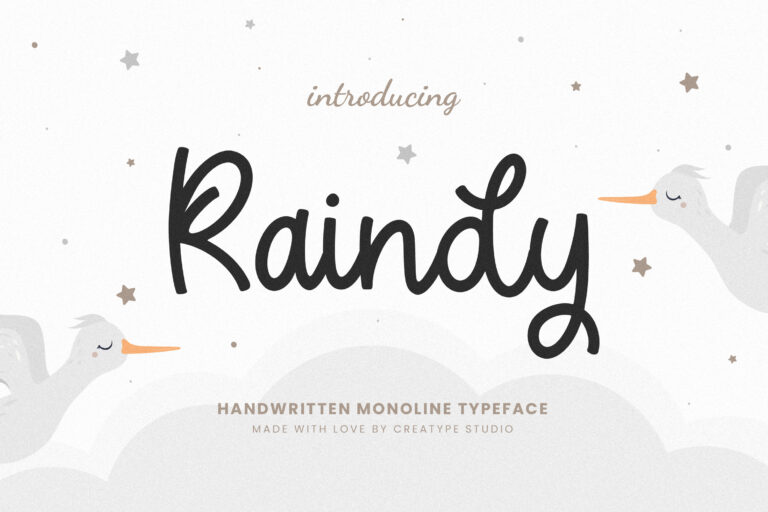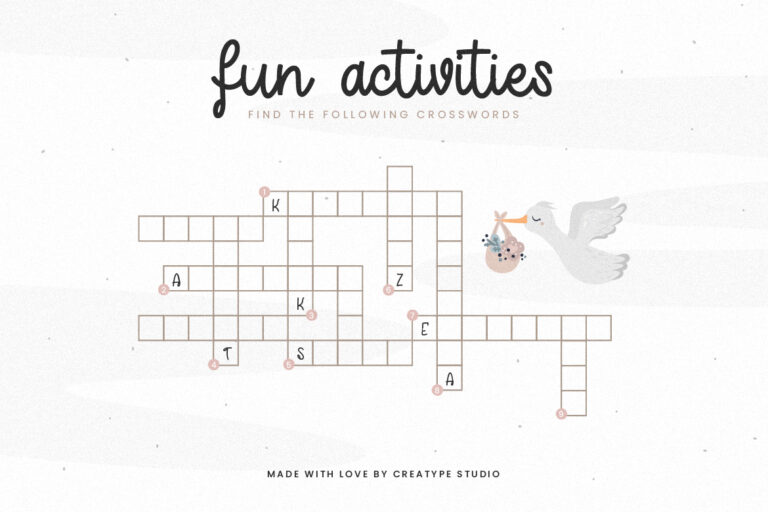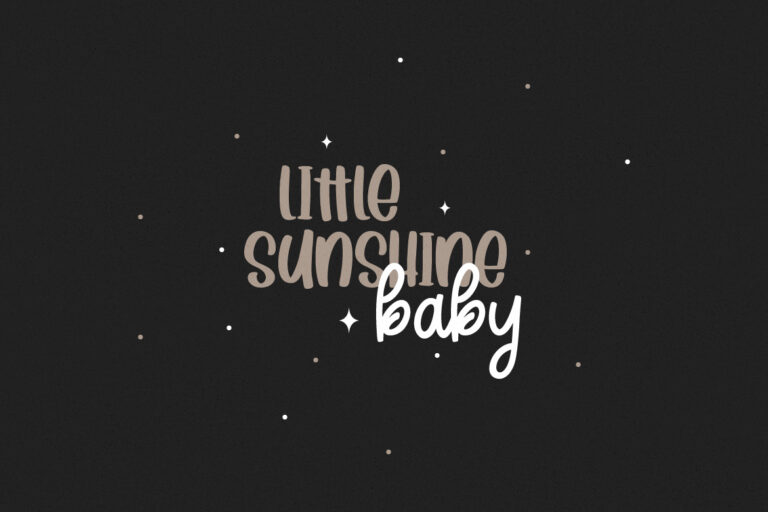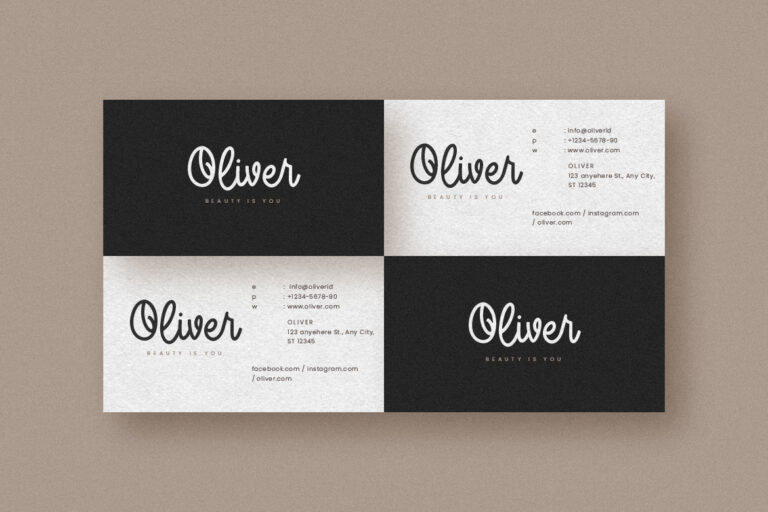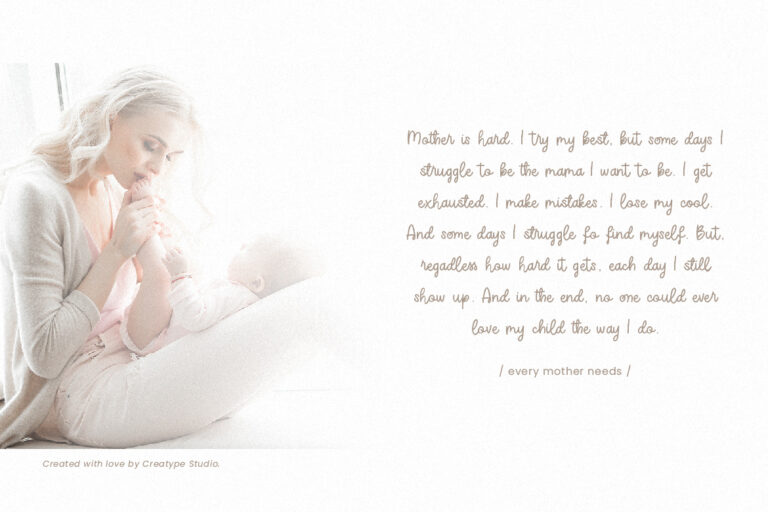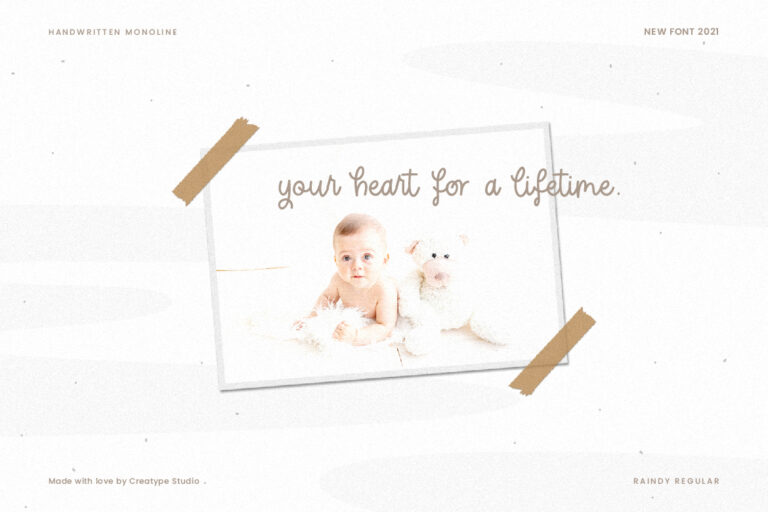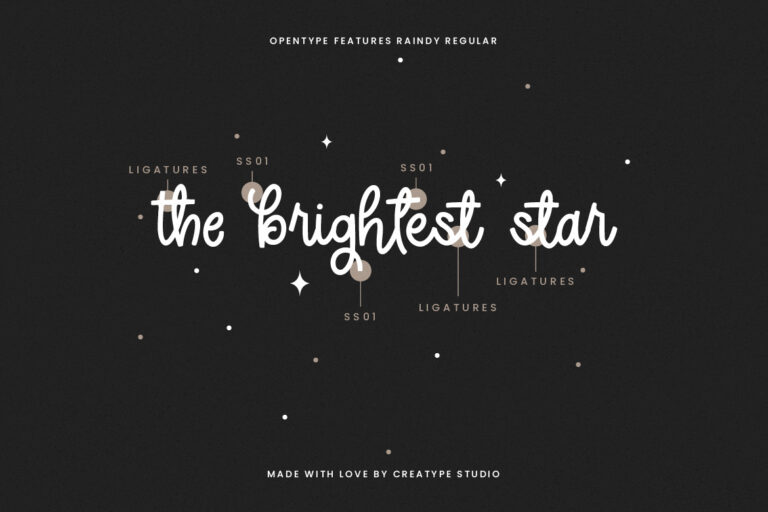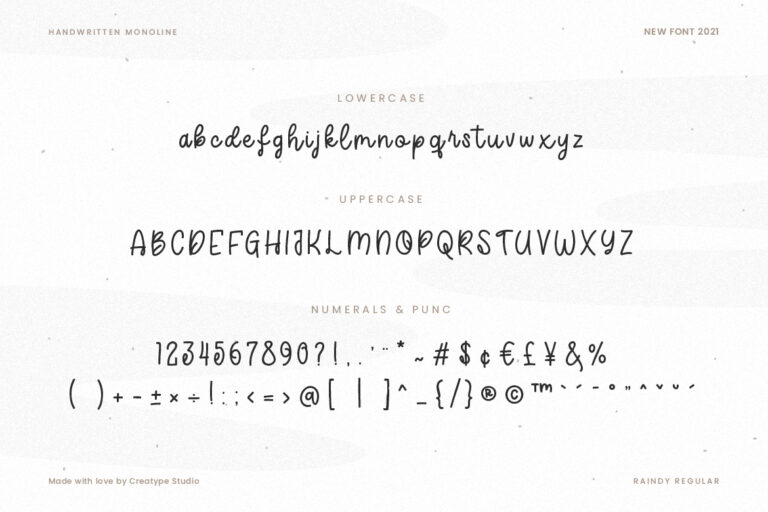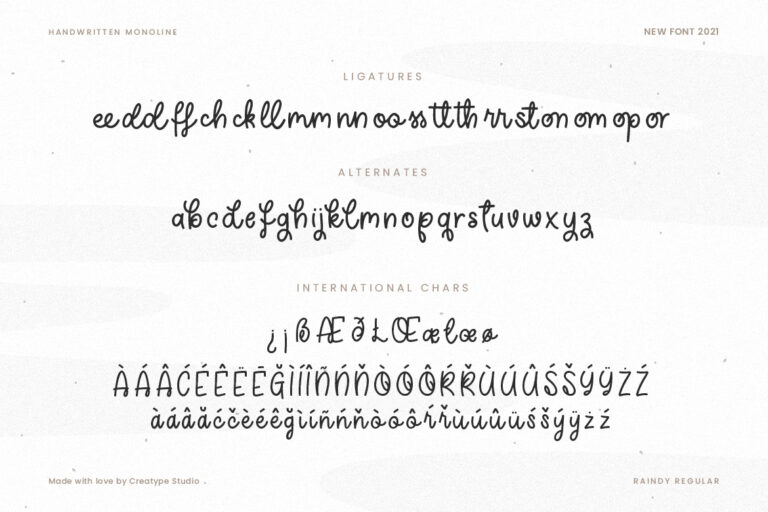
Raindy Monoline
Raindy is a handwritten monoline typeface specially made with love, resulting in a font that looks so cute and adorable. This font is perfect for all your products that need a cheerful feel.
Raindy is perfect for branding projects, logo, wedding designs, social media posts, advertisements, product packaging, product designs, label, photography, watermark, invitation, stationery and any projects that need handwriting taste.
- Fonts include multilingual support for; Afrikaans, Albanian, Czech, Danish, Dutch, English, Estonian, Finnish, French, German, Hungarian, Italian, Latvian, Lithuanian, Norwegian, Polish, Portuguese, Slovak, Slovenian, Spanish, Swedish.